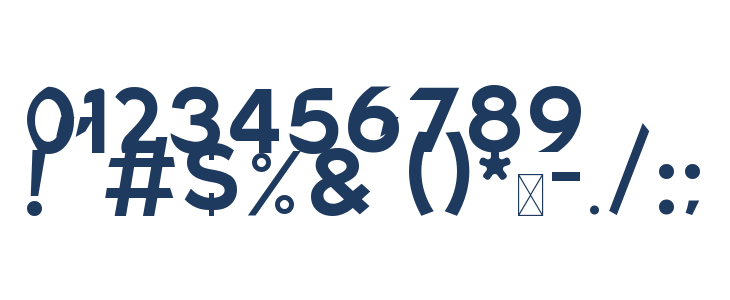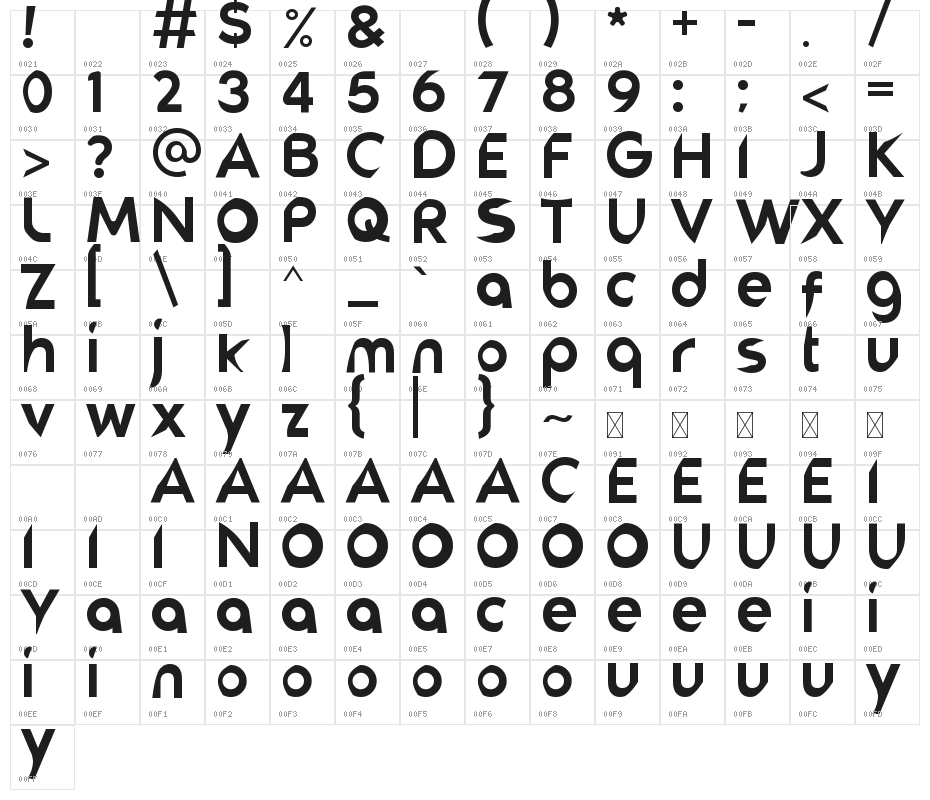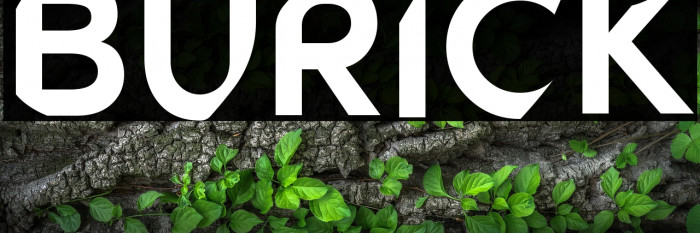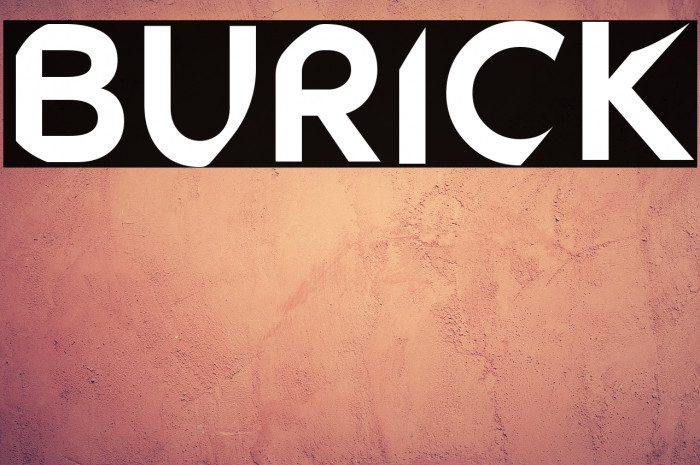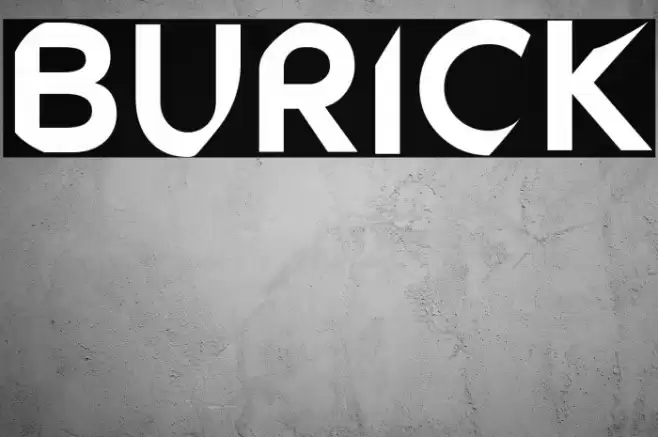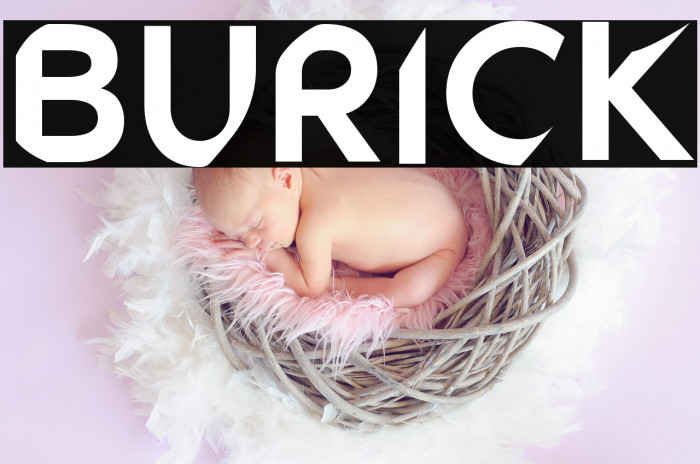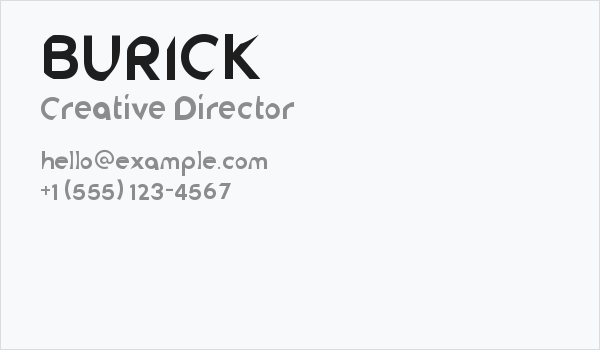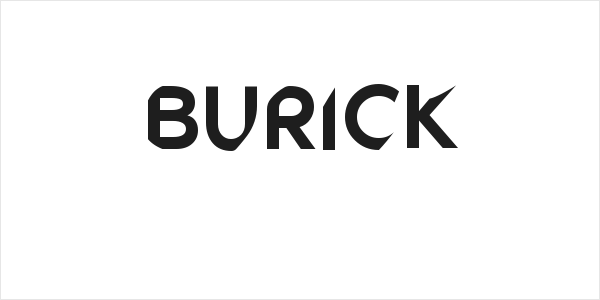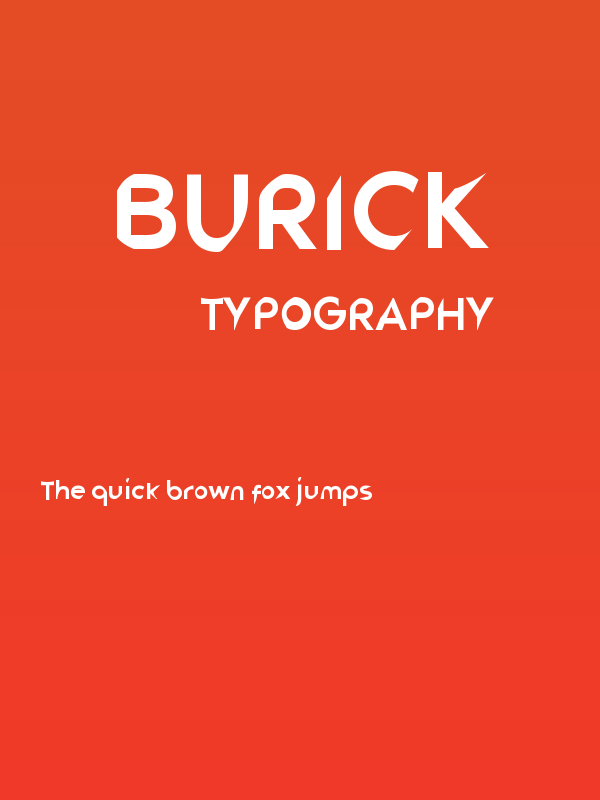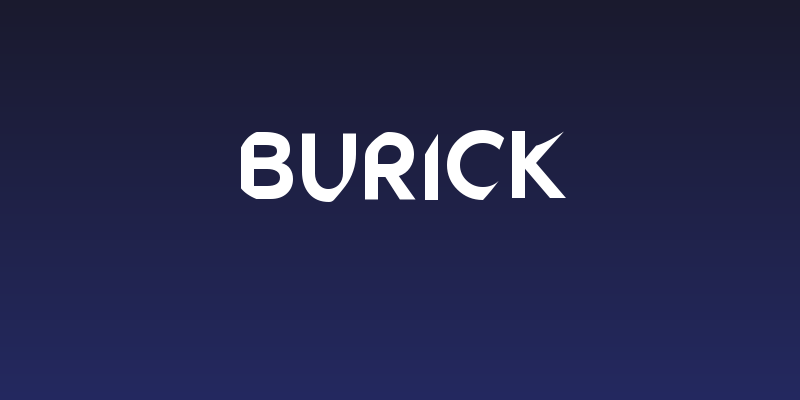
BURICK Font
BURICK Description
This font features a bold and modern design with clean, geometric lines. The uppercase letters are distinct with sharp angles and a uniform stroke width, giving them a strong presence. The lowercase letters maintain a similar geometric style, with rounded edges that add a touch of softness to the overall appearance. The numerals are consistent with the letterforms, ensuring readability and balance. Special characters are well-integrated, maintaining the font's cohesive look. This font's design is versatile, making it suitable for various applications that require a contemporary and impactful visual style.
| Proposed Projects | Ideal for branding, advertising, headlines, and digital media projects that require a strong, modern aesthetic. |